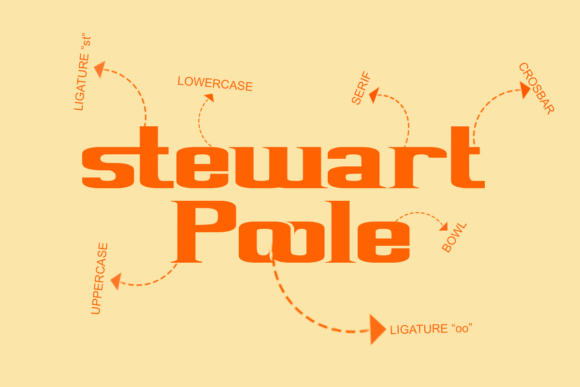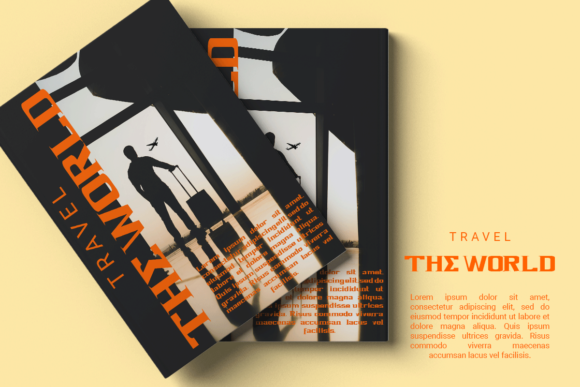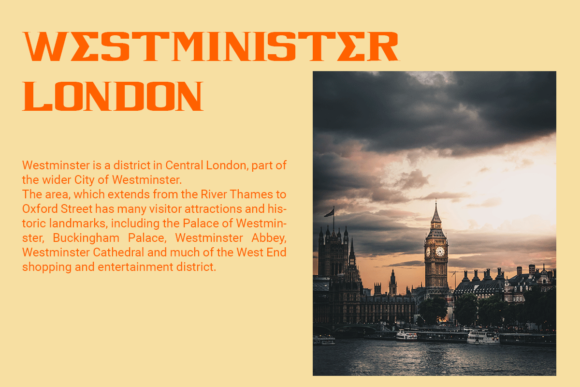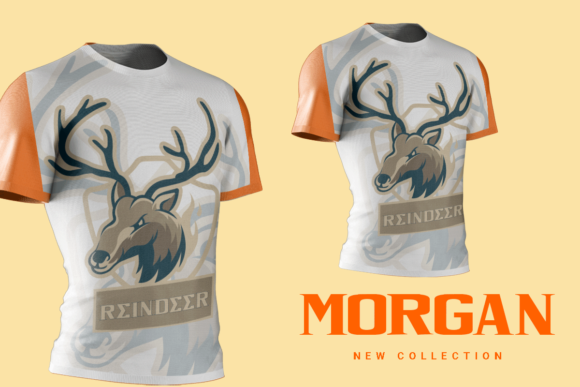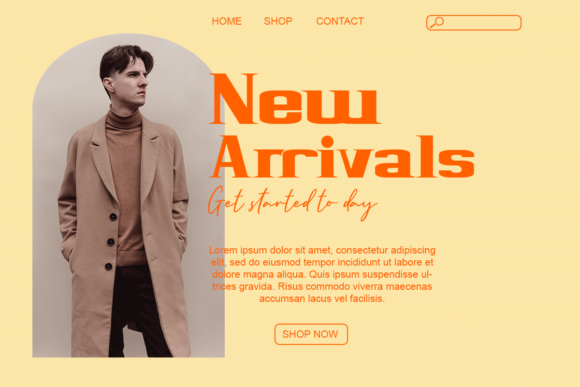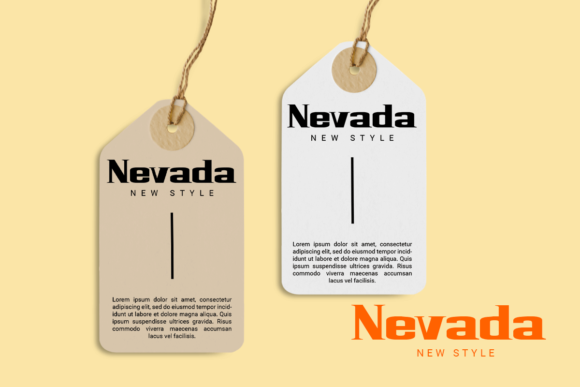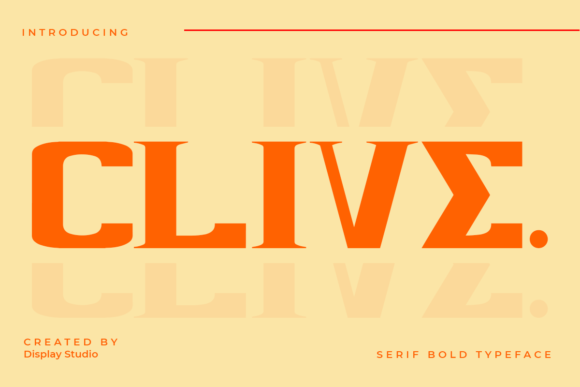
Introducing Clive Font: The Ultimate Serif Font for Bold Designs
Are you tired of using the same old fonts in your designs? Do you want to add a touch of confidence and dynamism to your projects? Look no further than Clive Font, a cool, bold, and thick lettered serif font that’s sure to take your designs to the next level. In this article, we’ll dive into the features and benefits of Clive Font, and explore how it can add tons of stylish character to your designs.
What is Clive Font?
Clive Font is a serif font that’s designed to make a statement. Its bold and thick lettering gives it a strong, confident, and dynamic appearance that’s perfect for designers who want to add a touch of personality to their projects. Whether you’re working on a logo, brochure, or website, Clive Font is the perfect choice for anyone who wants to make a lasting impression.
Key Features of Clive Font
- Bold and Thick Lettering: Clive Font features bold and thick lettering that gives it a strong and confident appearance.
- Serif Design: The font features a classic serif design that adds a touch of sophistication and elegance to your designs.
- Dynamic and Versatile: Clive Font is perfect for a wide range of design projects, from logos and brochures to websites and more.
- Easy to Read: Despite its bold design, Clive Font is easy to read, making it perfect for body text and headlines.
Benefits of Using Clive Font
So why should you choose Clive Font for your next design project? Here are just a few benefits of using this amazing font:
- Adds Character to Your Designs: Clive Font adds a touch of personality and character to your designs, setting them apart from the competition.
- Perfect for Logos and Branding: The font’s bold and confident design makes it perfect for logos and branding projects.
- Versatile and Dynamic: Clive Font can be used for a wide range of design projects, from print to digital.
- Easy to Pair with Other Fonts: The font’s classic serif design makes it easy to pair with other fonts, allowing you to create unique and interesting typography combinations.
How to Use Clive Font in Your Designs
Using Clive Font in your designs is easy. Here are a few tips to get you started:
- Use it as a Headline Font: Clive Font is perfect for headlines and titles, where its bold and confident design can really make an impact.
- Pair it with Other Fonts: Experiment with pairing Clive Font with other fonts to create unique and interesting typography combinations.
- Use it for Body Text: Despite its bold design, Clive Font is easy to read, making it perfect for body text and paragraphs.
In conclusion, Clive Font is a cool, bold, and thick lettered serif font that’s perfect for designers who want to add a touch of confidence and dynamism to their projects. With its strong and confident design, Clive Font is sure to make a lasting impression on your audience. Whether you’re working on a logo, brochure, or website, Clive Font is the perfect choice for anyone who wants to add tons of stylish character to their designs.